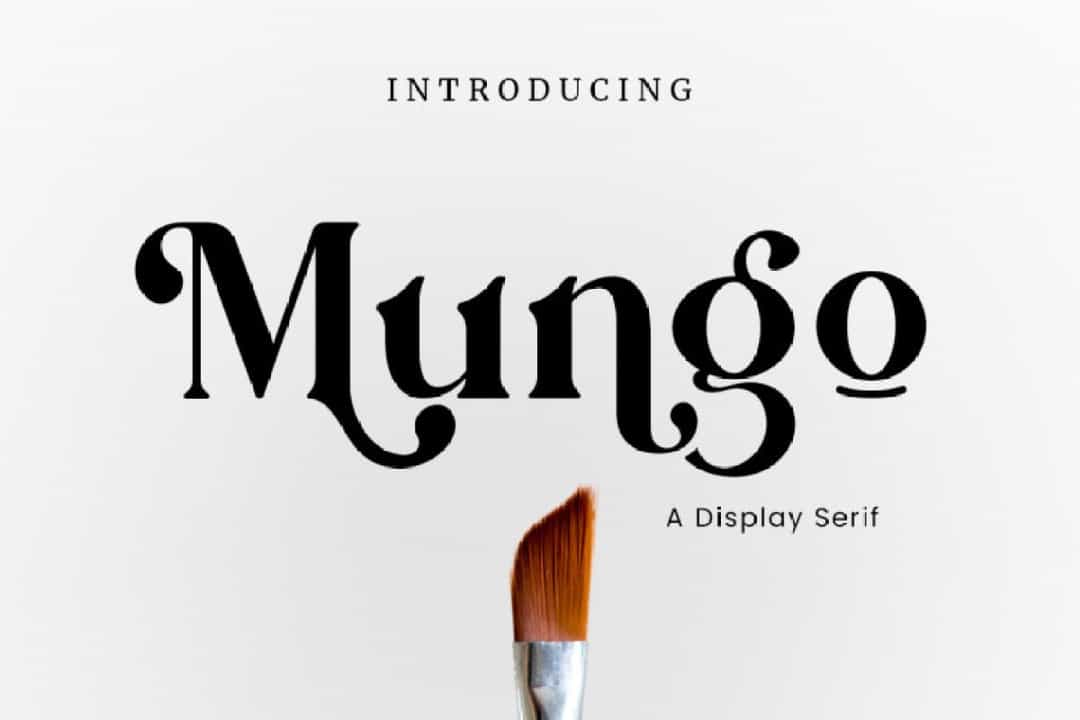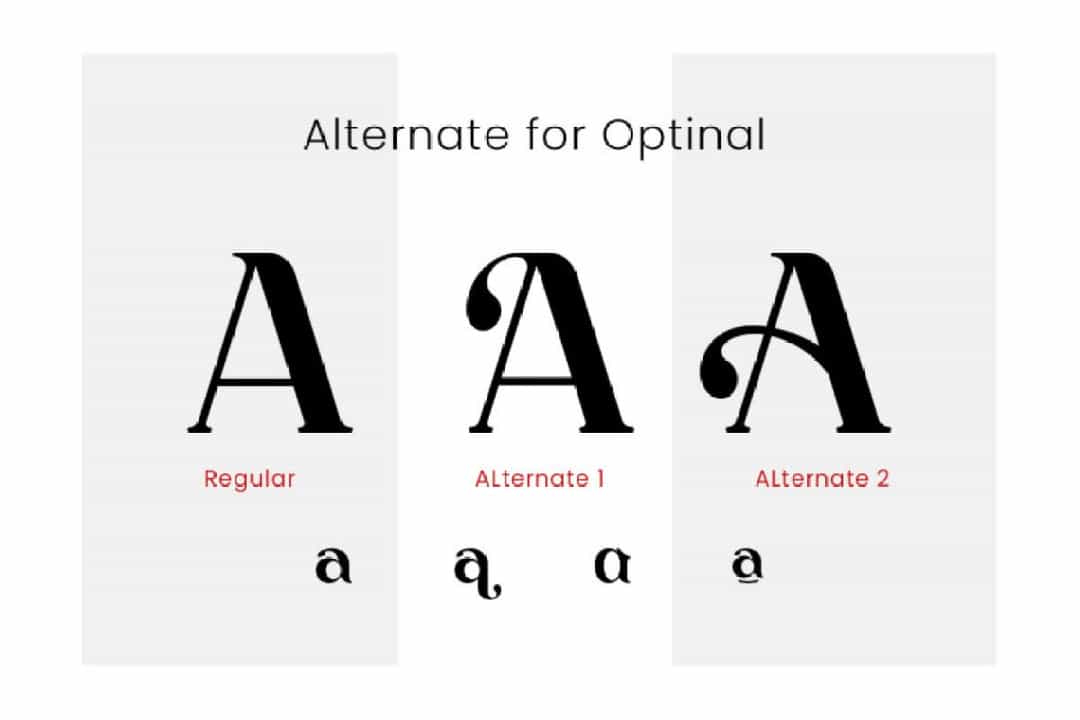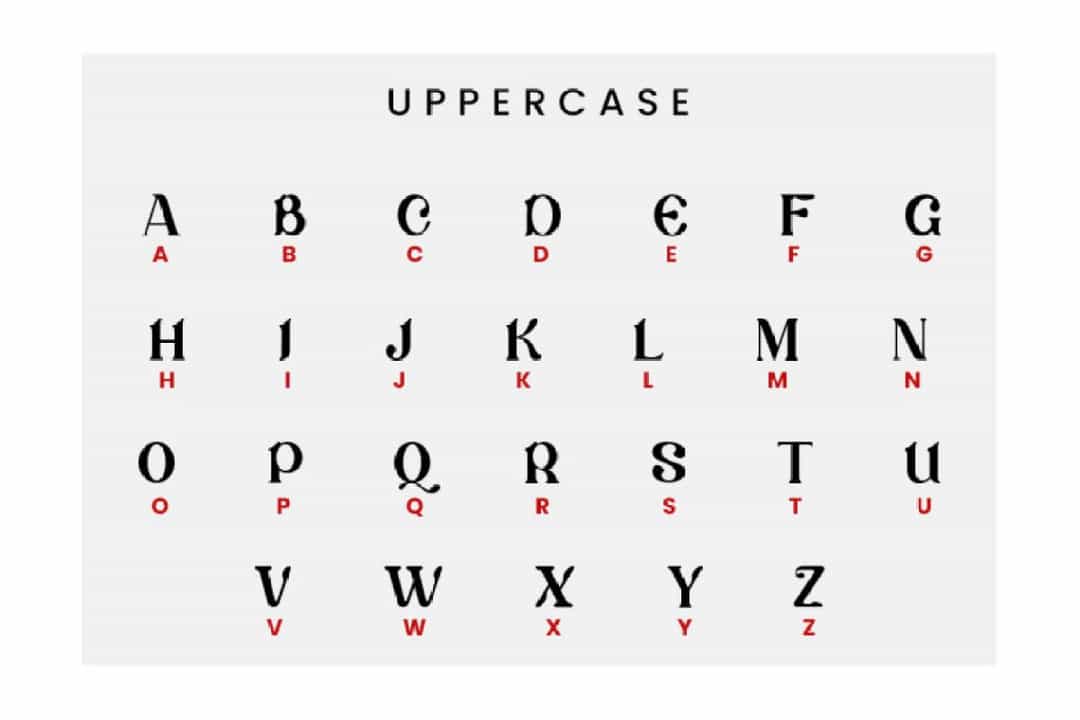
Mungo is an elegant and beautiful serif font. Featuring stunning alternates and ligatures, Mungo is perfect for your project and PUA encoded so you have access to each glyph and swash easily!